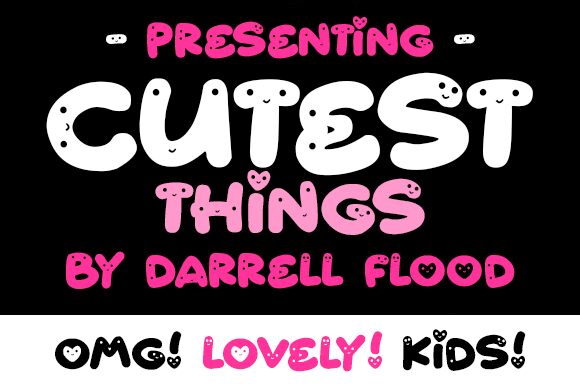
Introducing Cutest Things, a bold display font designed by Darrell Flood. Perfect for creating cartoon-style logos, posters and t-shirt designs - this charming font will bring the cutest vibes to any project!